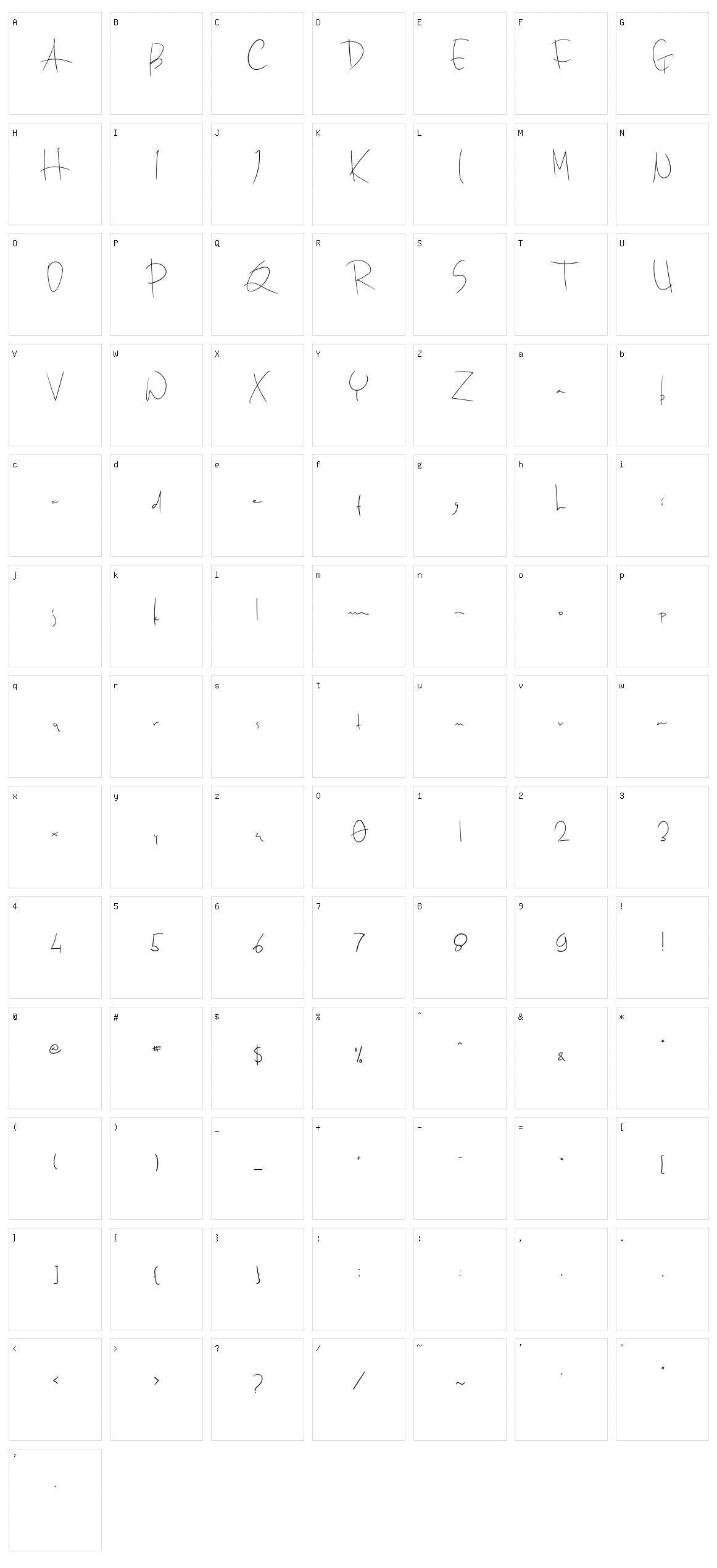
The free font Drop Writen is carefully designed by Reffan Suseno, showcasing a thoughtful balance of creativity and usability and falls under the Script font style. When you download the ZIP file, it contains only 47.5 KB of font files, making it lightweight and quick to download. Please review the license details below to understand permitted usage and distribution rights. If license information is not available, we recommend using this font for personal projects only or contacting the author directly for commercial usage permissions.